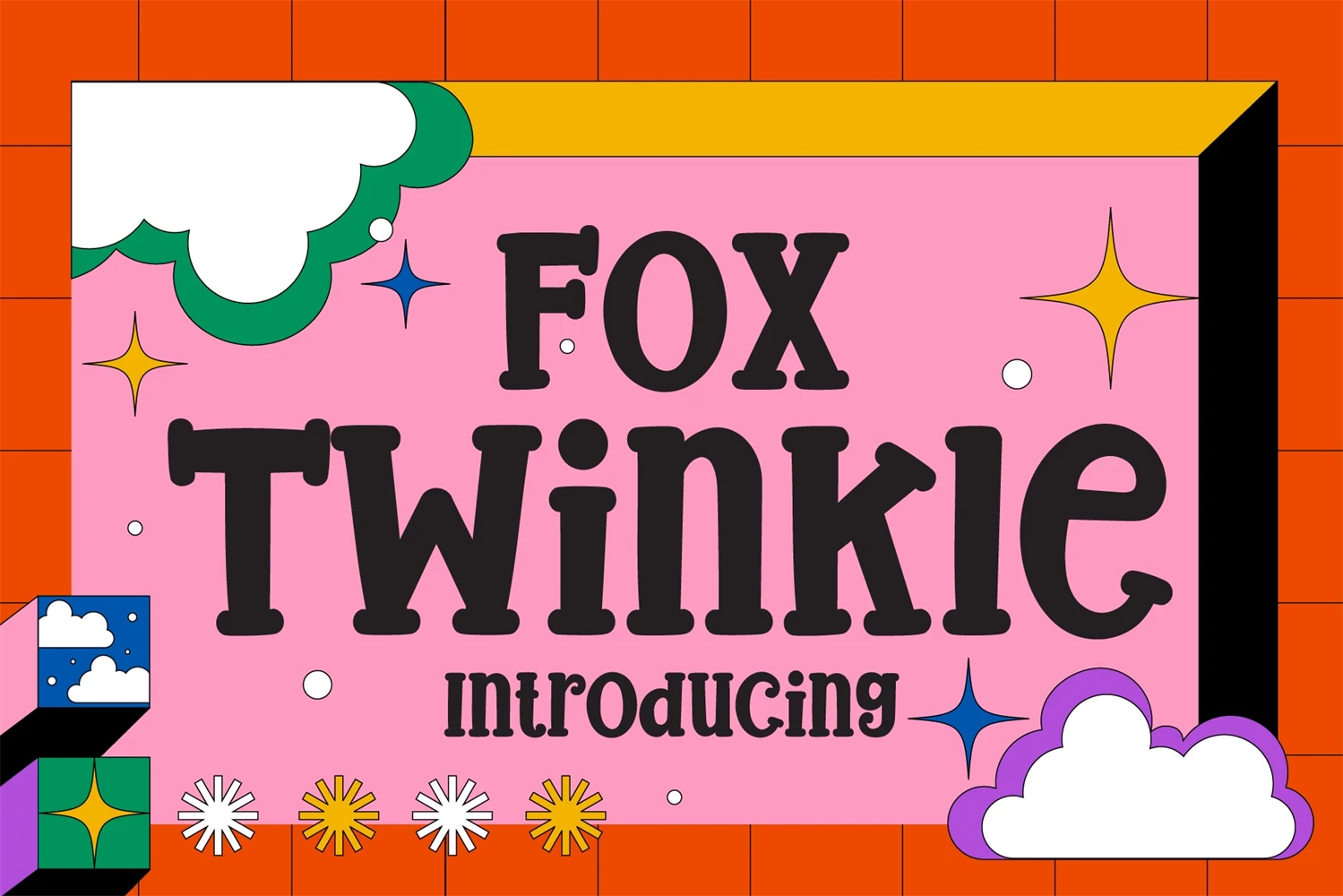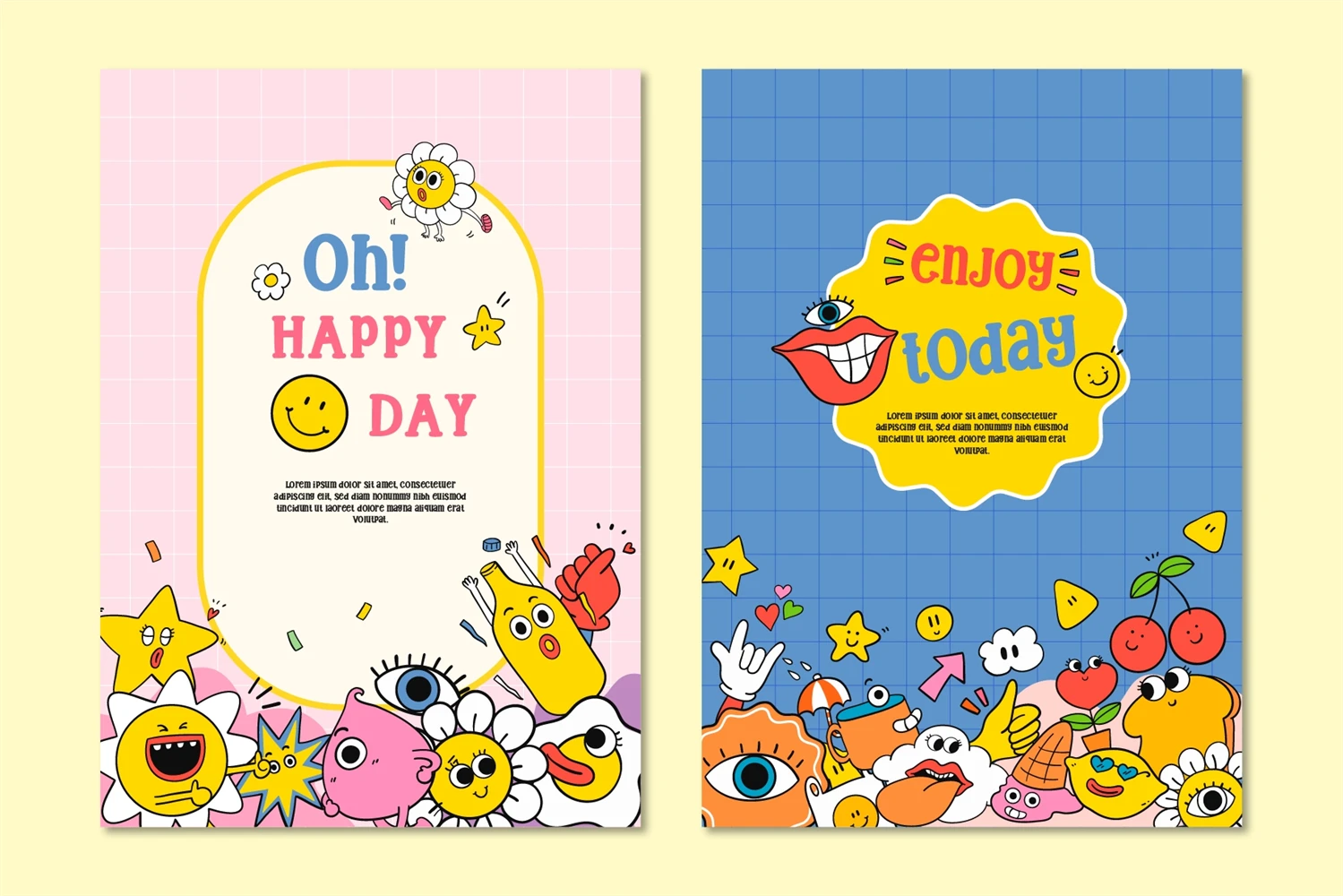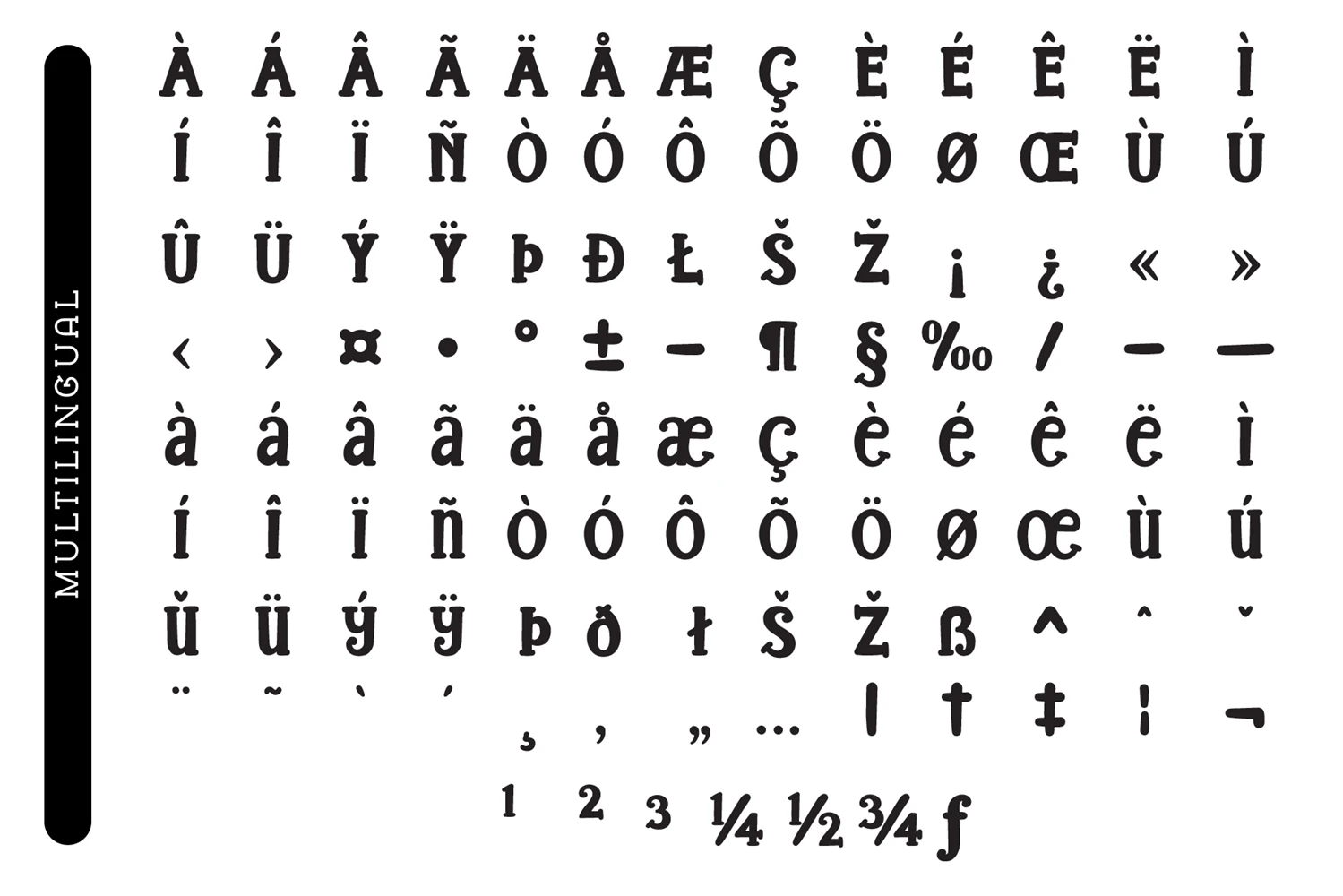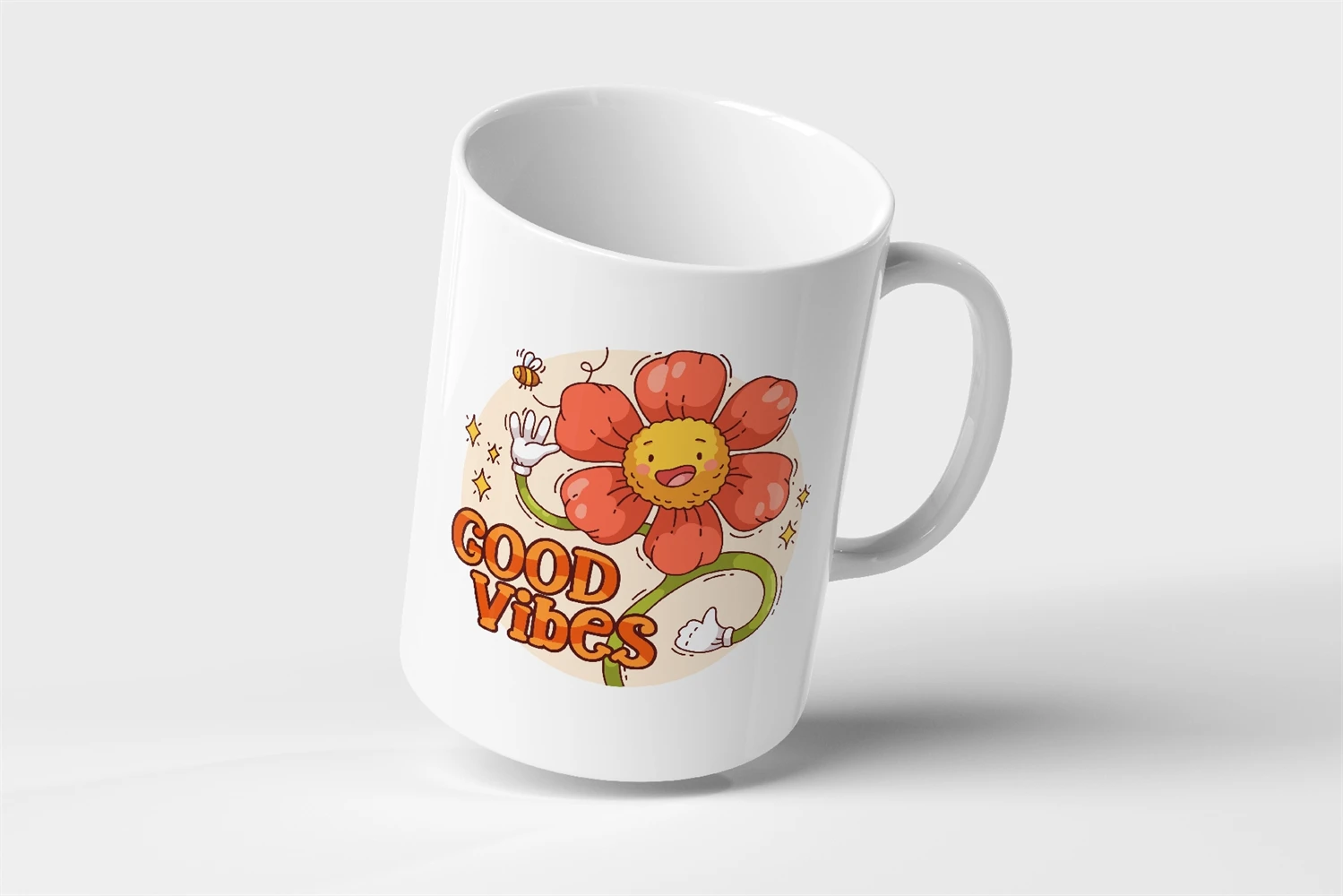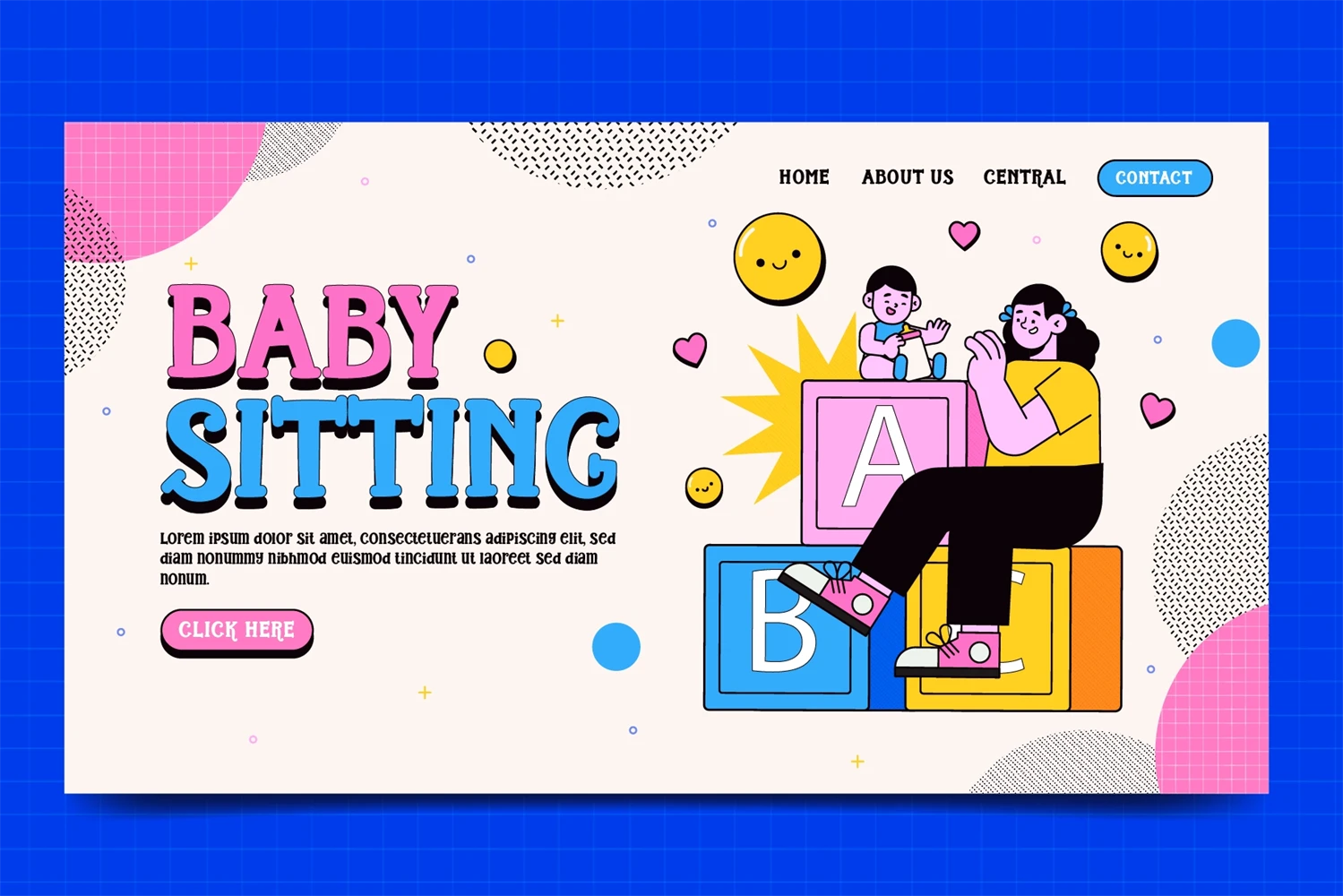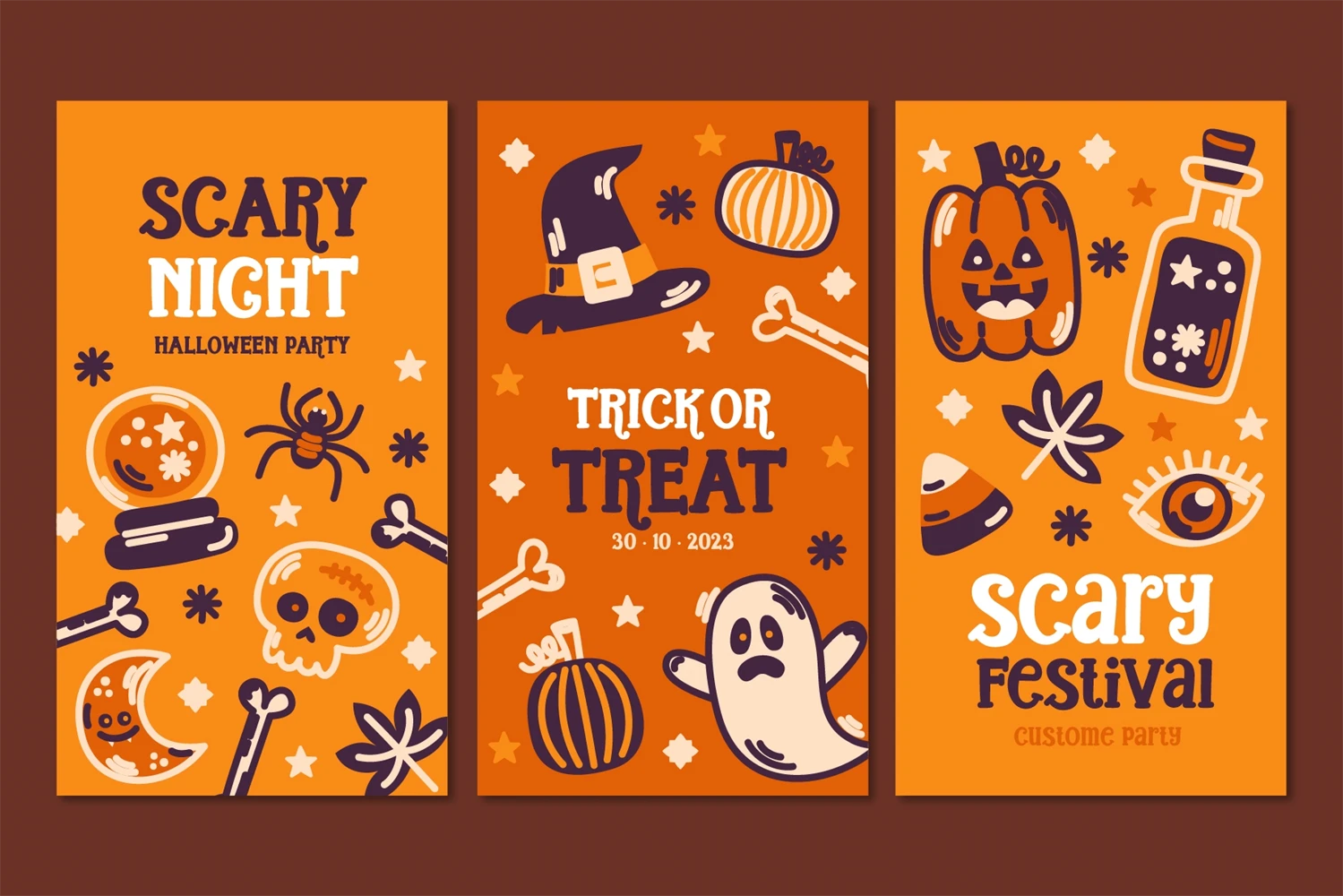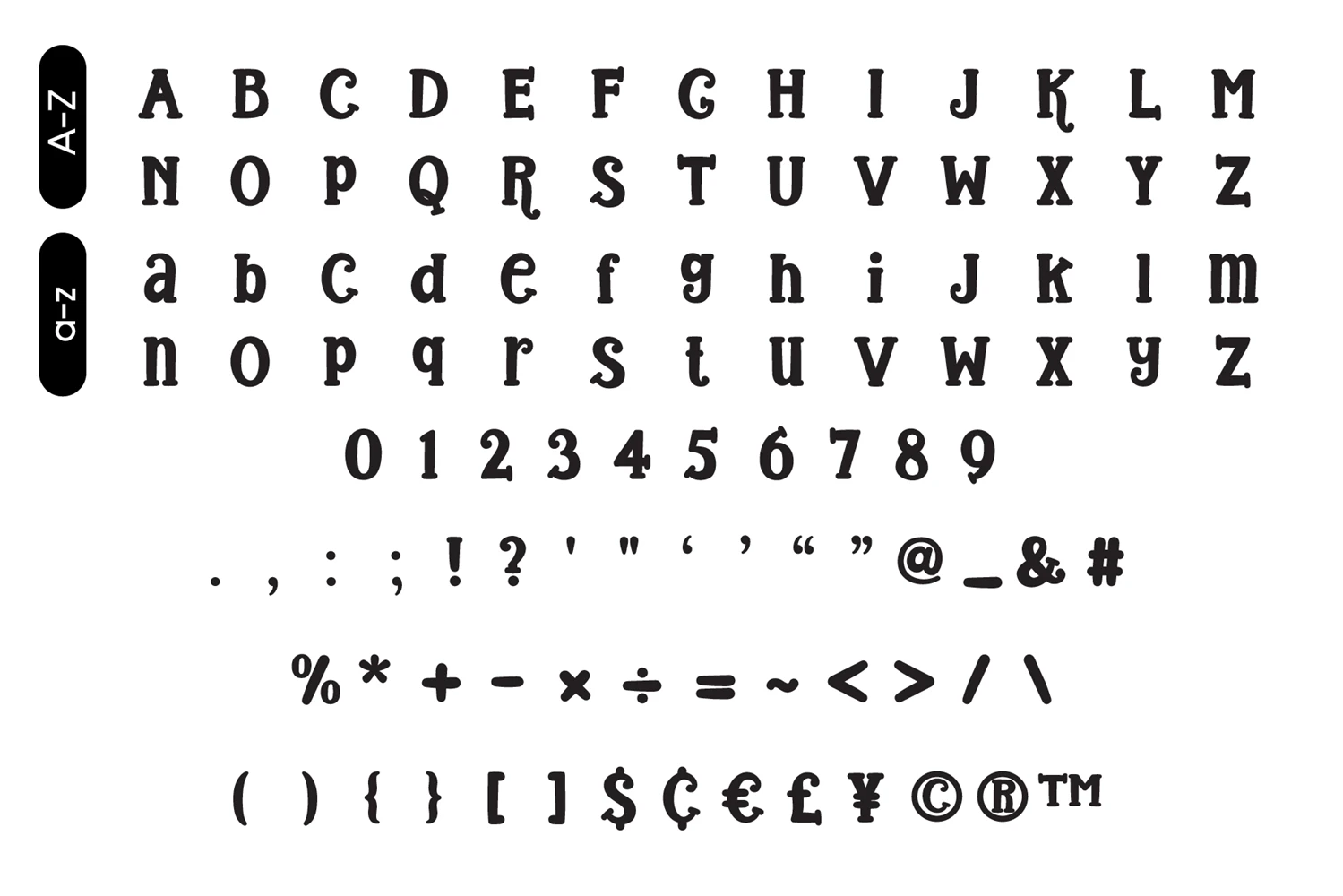
Fox Twinkle Font is a fun and playful slab serif font that adds a captivating and energetic touch to your designs. Its main feature is its vibrant and expressive design, allowing you to create attention-grabbing headlines, t-shirt typography, banners, product labels, and more with its versatility and eye-catching presence.